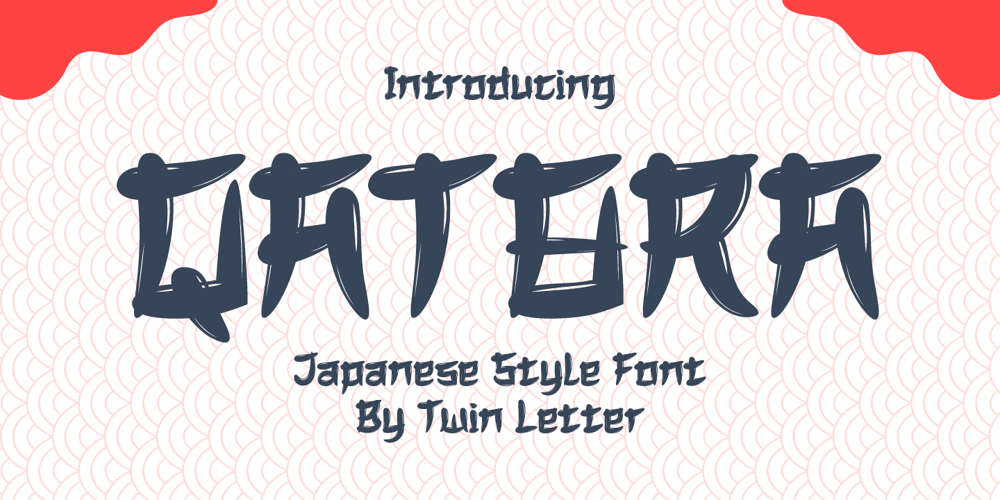
Qatora Faux Font Family was designed by Rozikan and published by Twinletter. Qatora Faux contains 1 styles and family package options. QATORA is a display font with a Japanese motif. Each letter in this font is distinct, resulting in harmony and beauty when composed into a word or sentence.When you use this font, your entire project will be beautiful and perfect; your audience will be fascinated; your project will be distinctive; and, of course, you will win the audience’s heart with a unique project appearance thanks to this font. Logotypes, food banners, branding, brochure, posters, movie titles, book titles, quotes, and more may all benefit from this font.Of course, using this font in your various design projects will make them excellent and outstanding; many viewers are drawn to the striking and unusual graphic display.Start utilizing this typeface in your projects to make them stand out